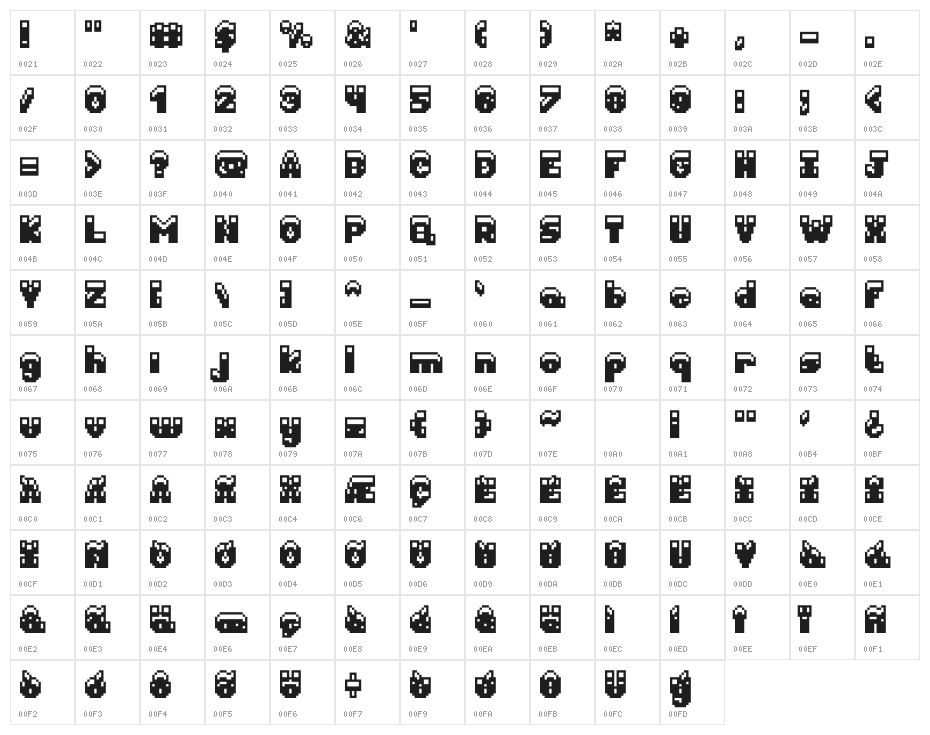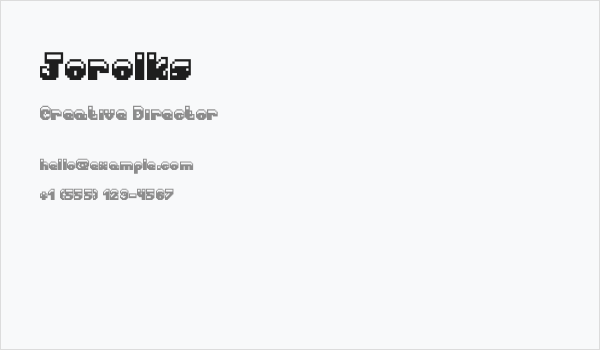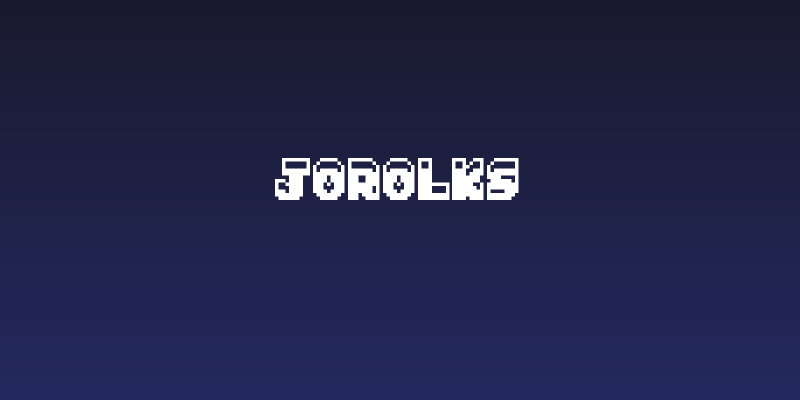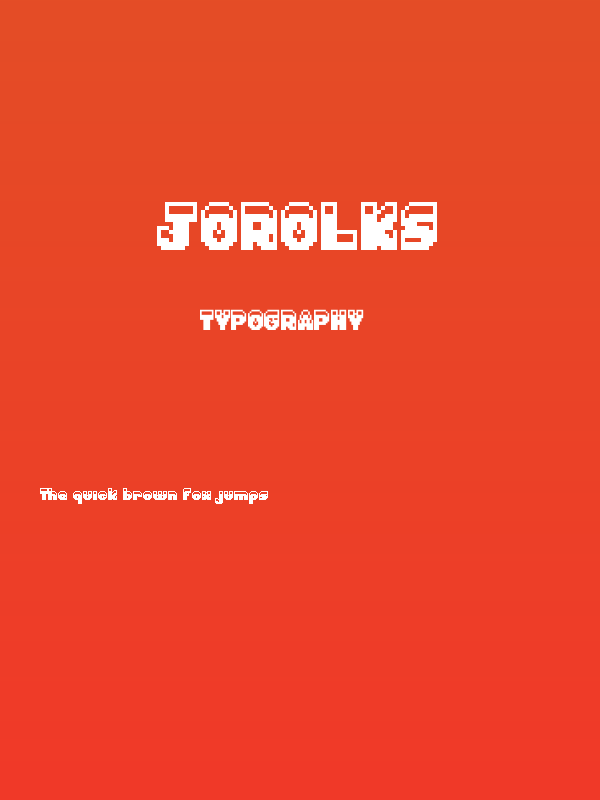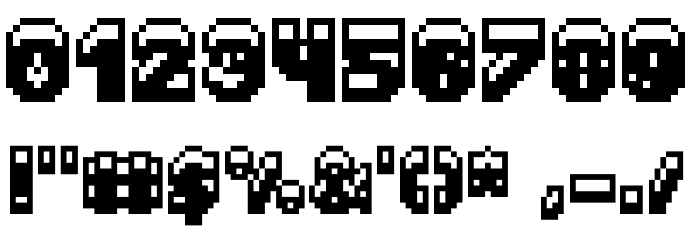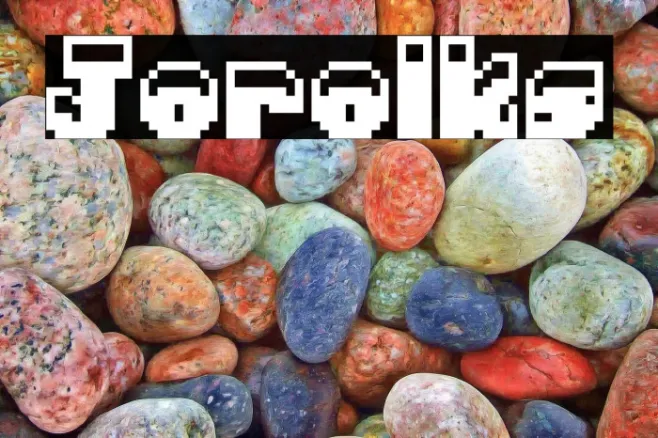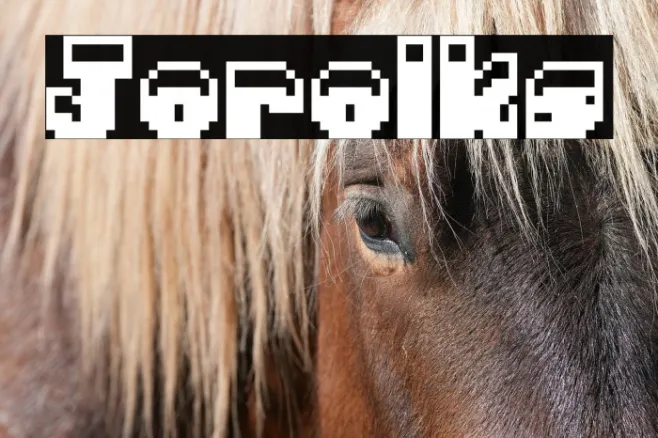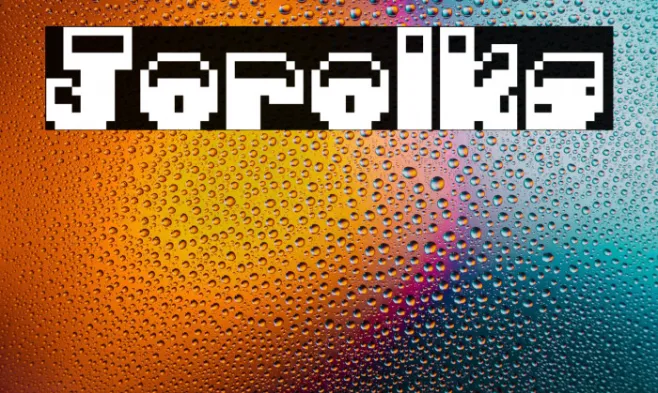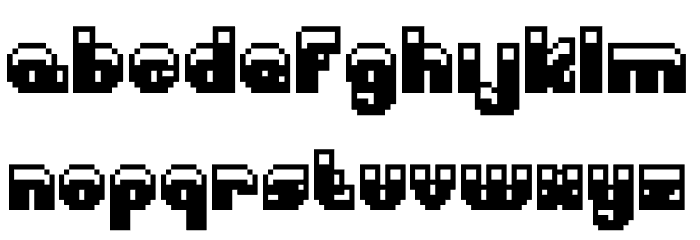
Jorolks Font
Jorolks Description
This font features a bold, pixelated design reminiscent of early digital or video game typography. Each character is constructed with a blocky, geometric style, giving it a retro, nostalgic feel. The uppercase and lowercase letters maintain a consistent height, with sharp angles and minimal curves, enhancing its digital aesthetic. Numbers and special characters follow the same pixelated pattern, ensuring uniformity across all glyphs. The font's distinct style makes it stand out, ideal for projects that require a vintage or tech-inspired look.
| Proposed Projects | Ideal for video game design, retro-themed posters, digital art, and tech-related branding. |